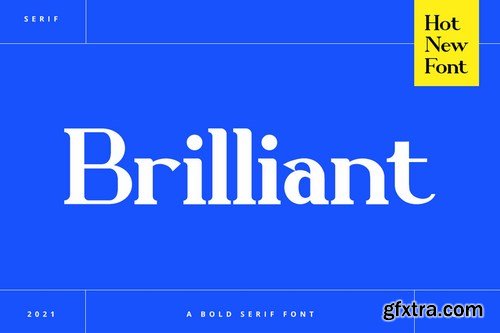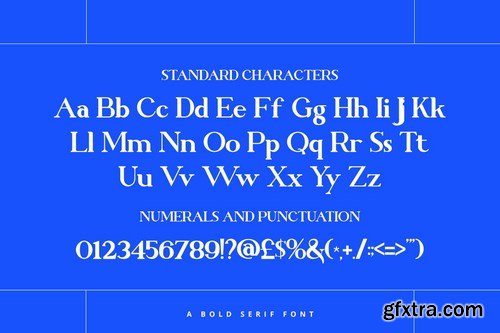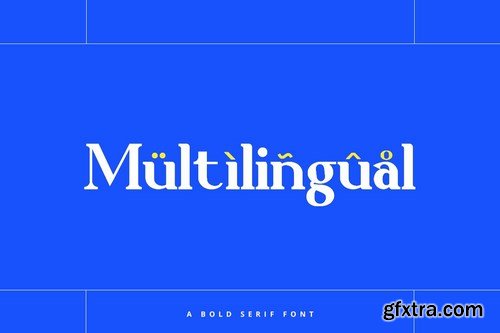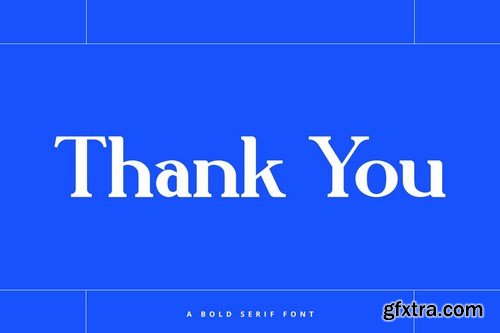
Brilliant is a strong and thick lettered serif font. It is imposing and features uniquely shaped letters, and as a result, it will easily match a wide range of creations that require a distinct touch.